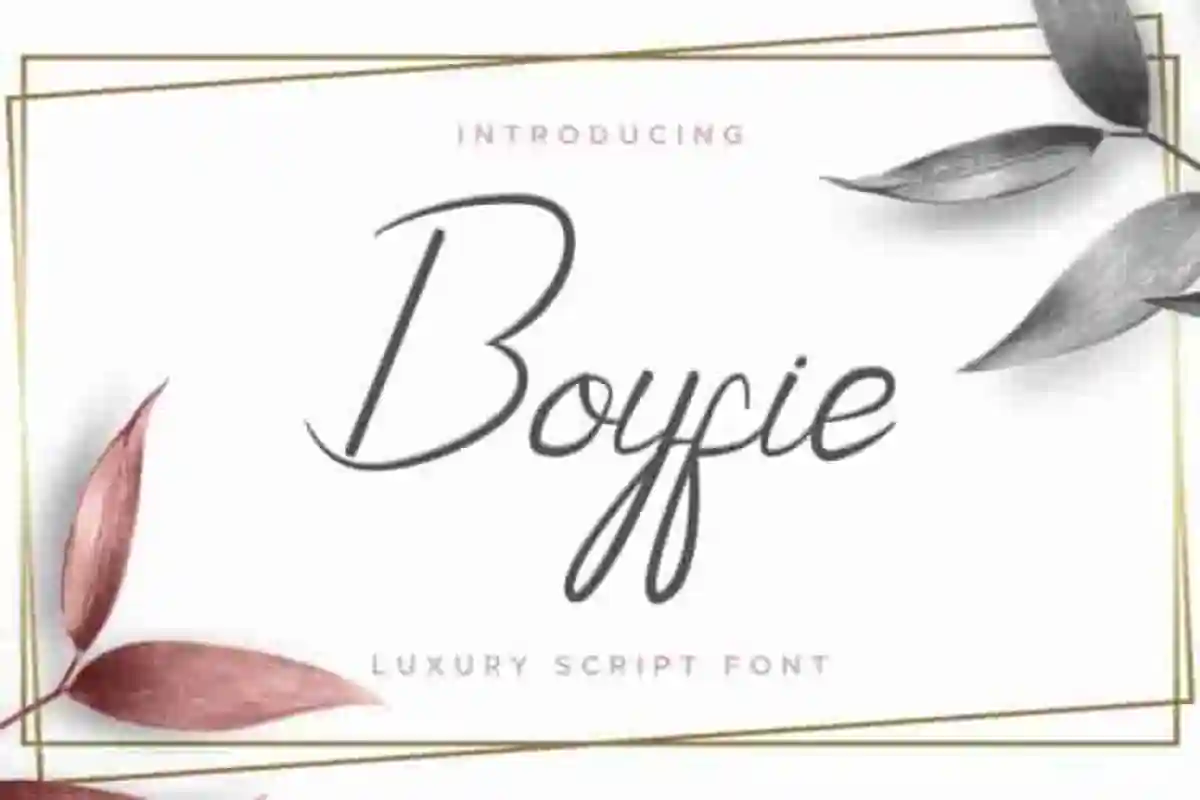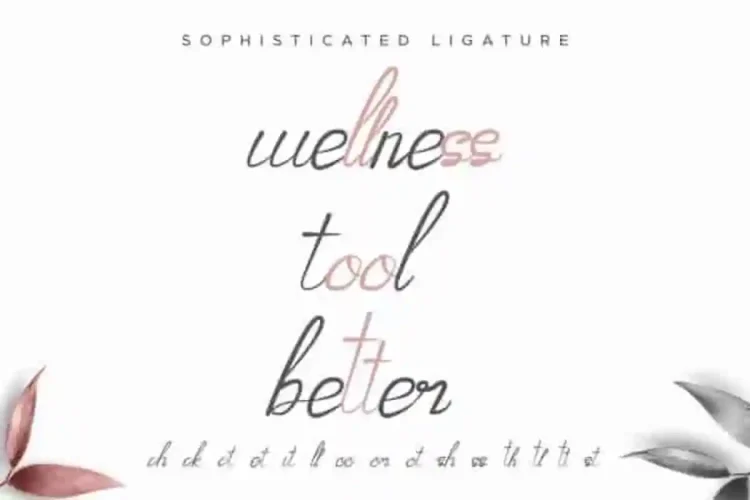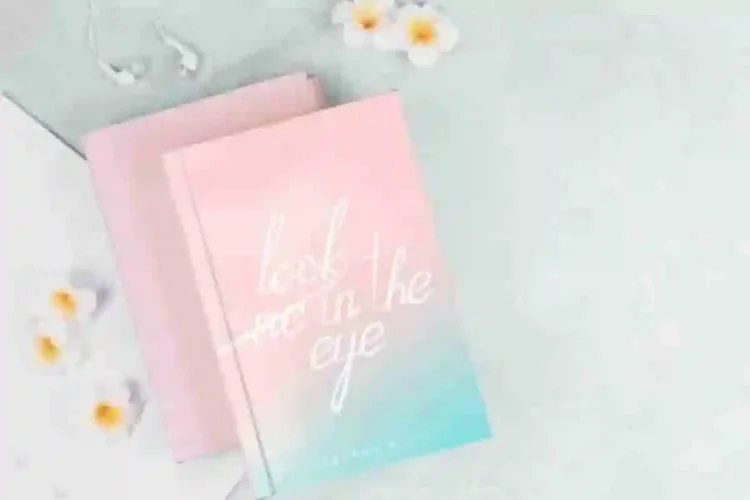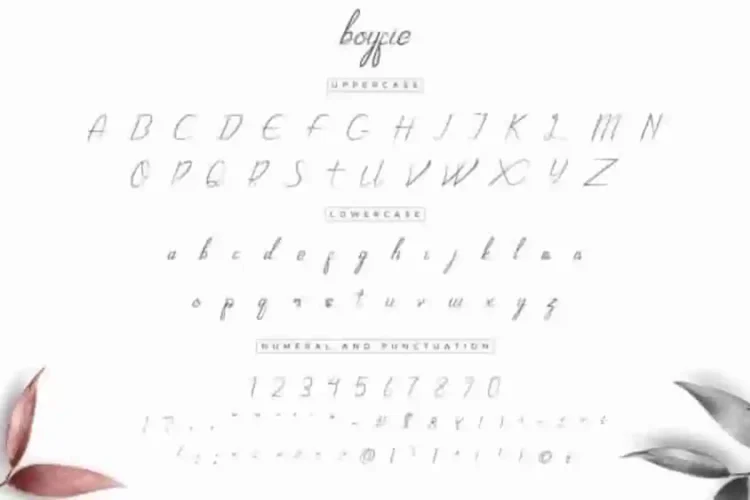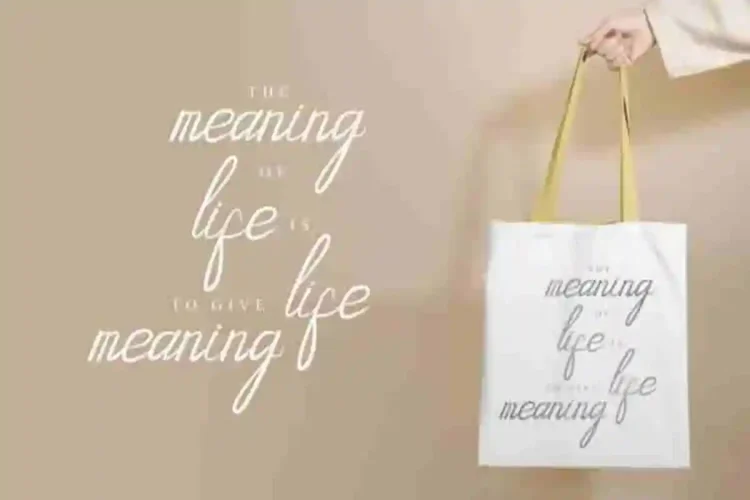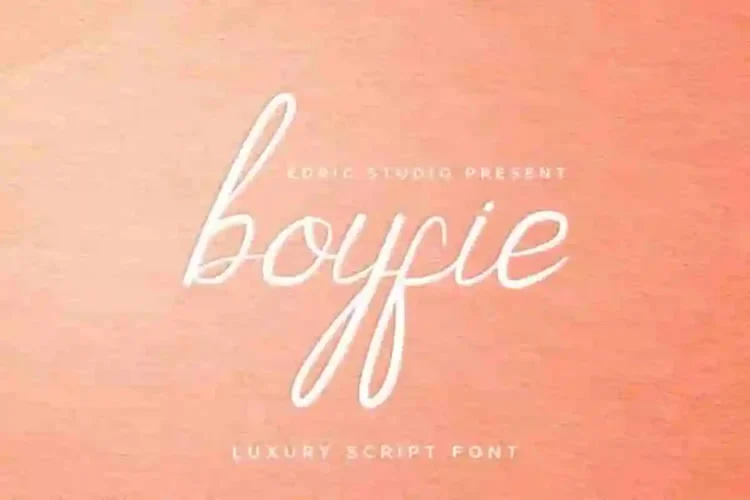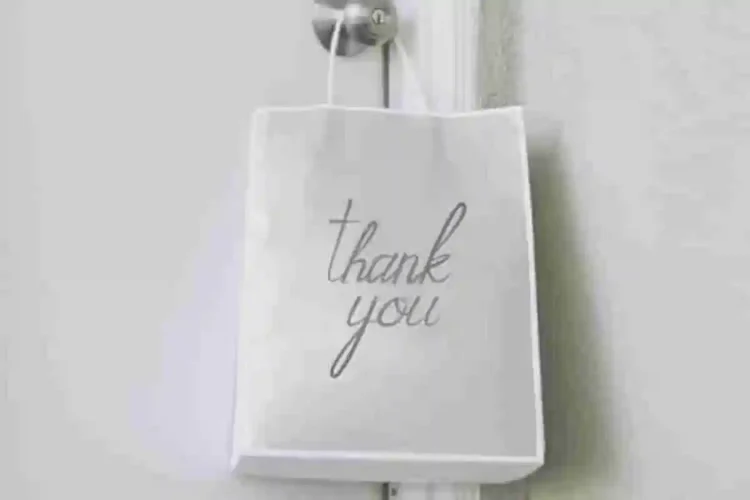
Boyfie Calligraphy Script Font
Boyfie Calligraphy Font is a Calligraphy font, freshly made from our Studio here in Indonesia. The artists/designers of this beautiful tyeface is Lukman and Sarah Suci.
Boyfie Calligraphy Script Font is an exclusive brand new calligraphy script typeface with brush style. This font has a stunning characters set, perfectly managed with well spaced and kerning. The theme style of this font will elegant,  vintage, stylish, sophisticated and classic brush calligraphic style. You wont find any where else, the font like Boyfie.
Boyfie Calligraphy Font will be great for any projects including : branding, logo, stationery, business card, signage, flyer, brochure etc. Almost all industries will be match for this typeface: wedding, events, real estate, architect, law firm, florist, gardening, makeup artist, travel, hotel, musician etc.